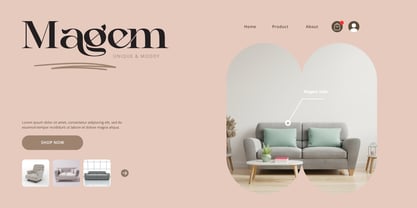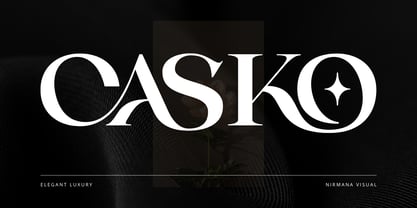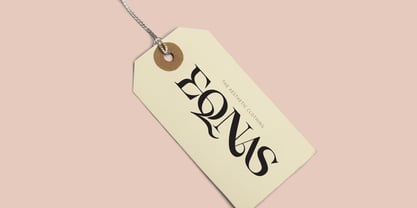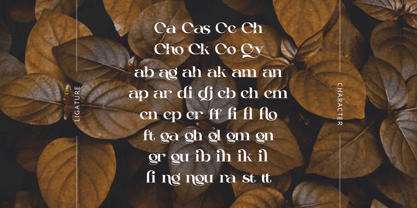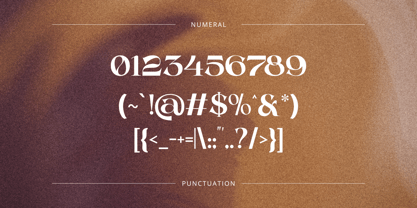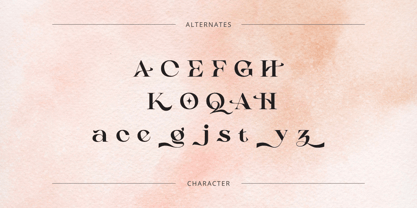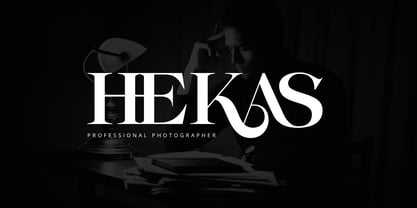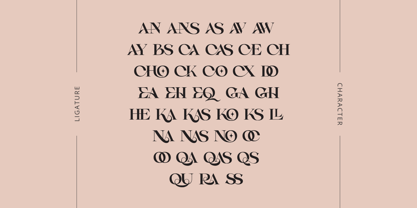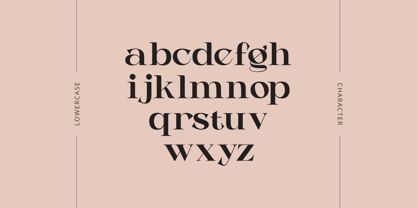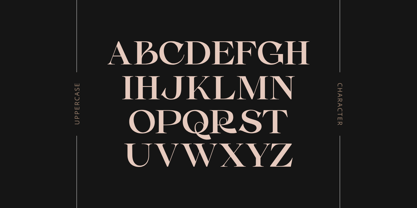
Casko Luxury
by Nirmana Visual
The Casko Luxury Font Family was designed by Sigit Dwipa and published by Nirmana Visual. Casko Luxury contains 2 styles and family package options.
Casko is a modern luxury logo font that exudes sophistication and style. With sleek lines and balanced proportions, it blends timeless elegance with contemporary design. Available in both Regular and Italic styles, Casko is perfect for premium branding, fashion labels, and high-end packaging. Its refined curves and minimalist form offer a distinctive identity, making every design feel exclusive and luxurious.